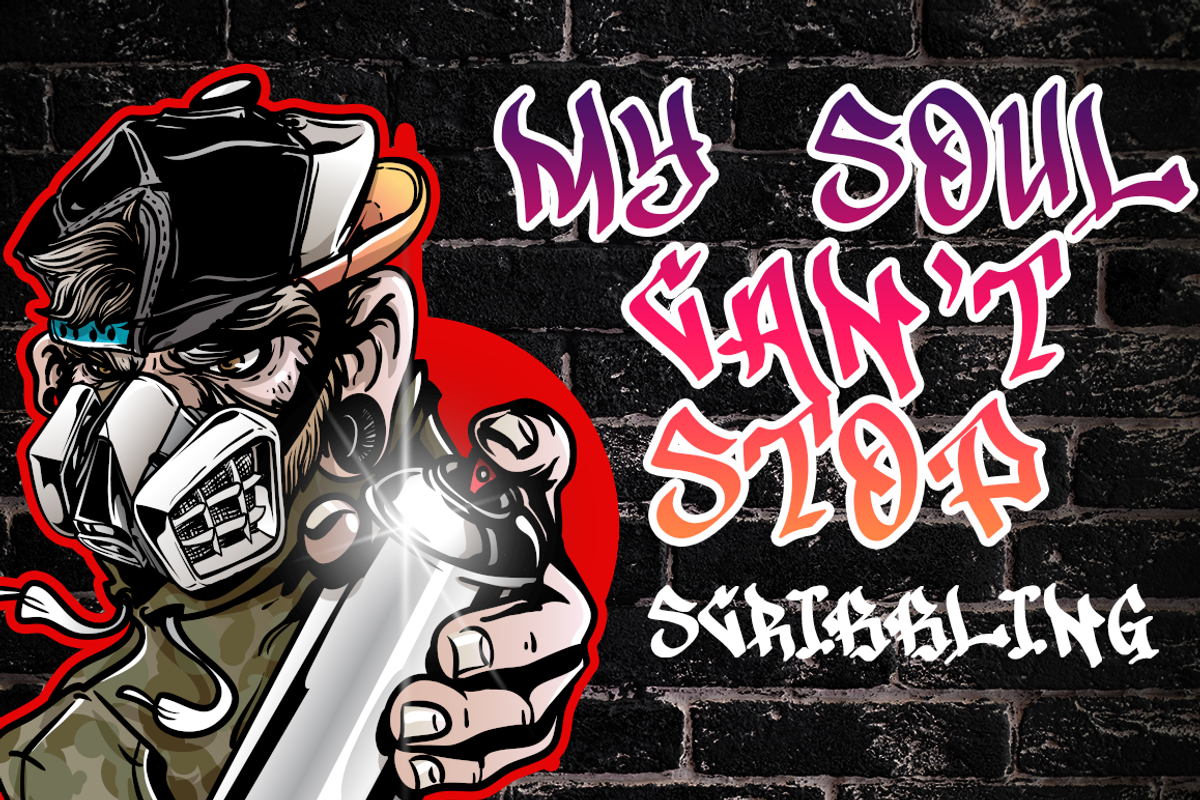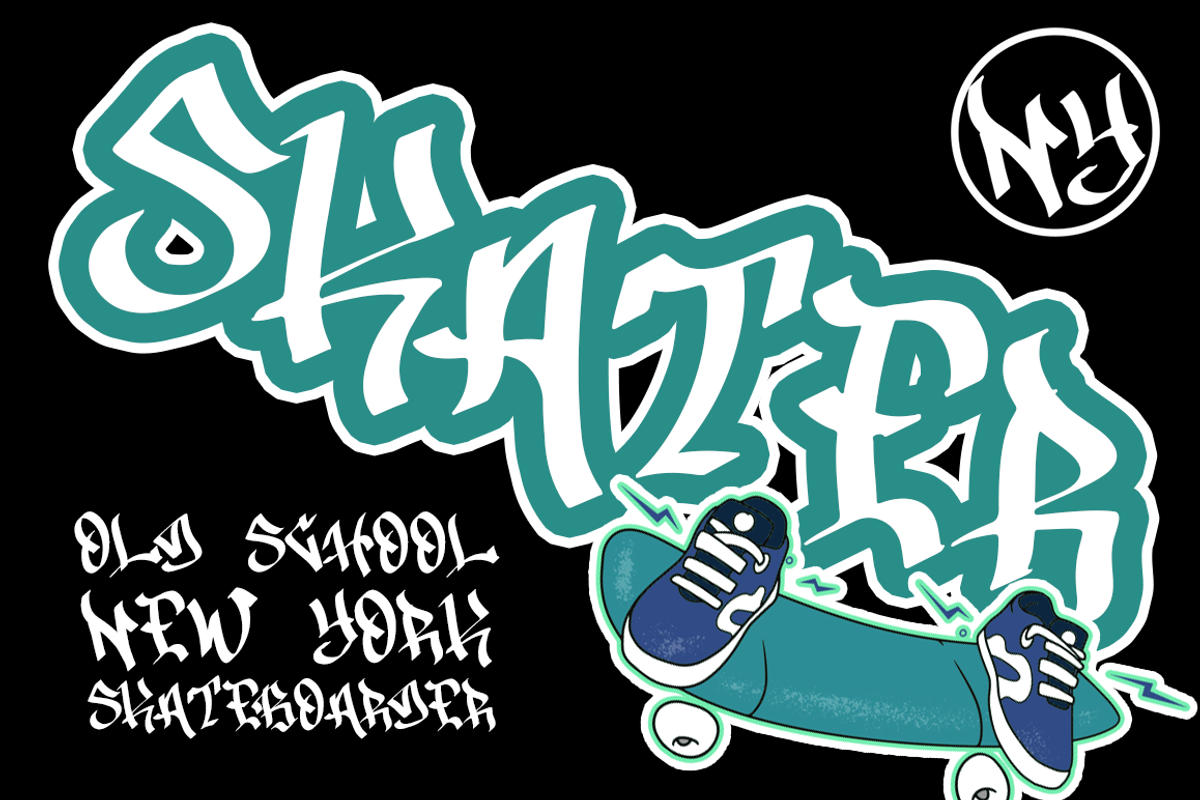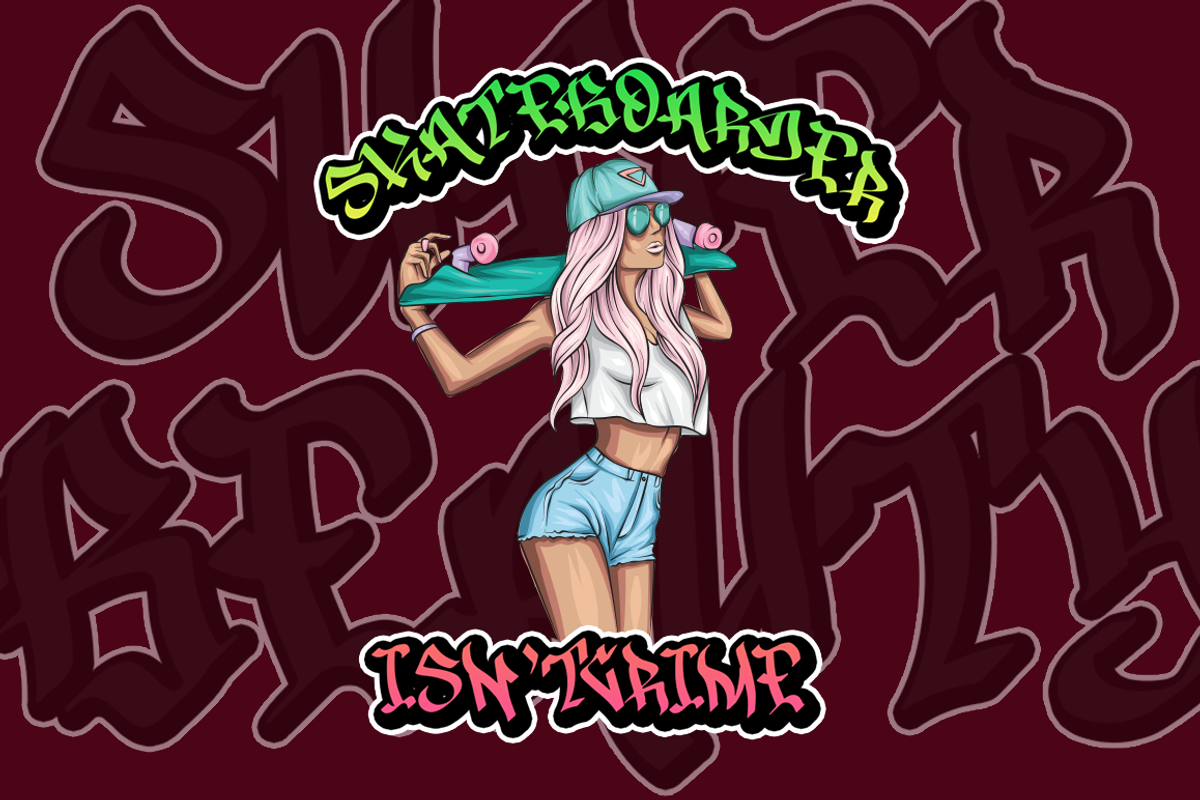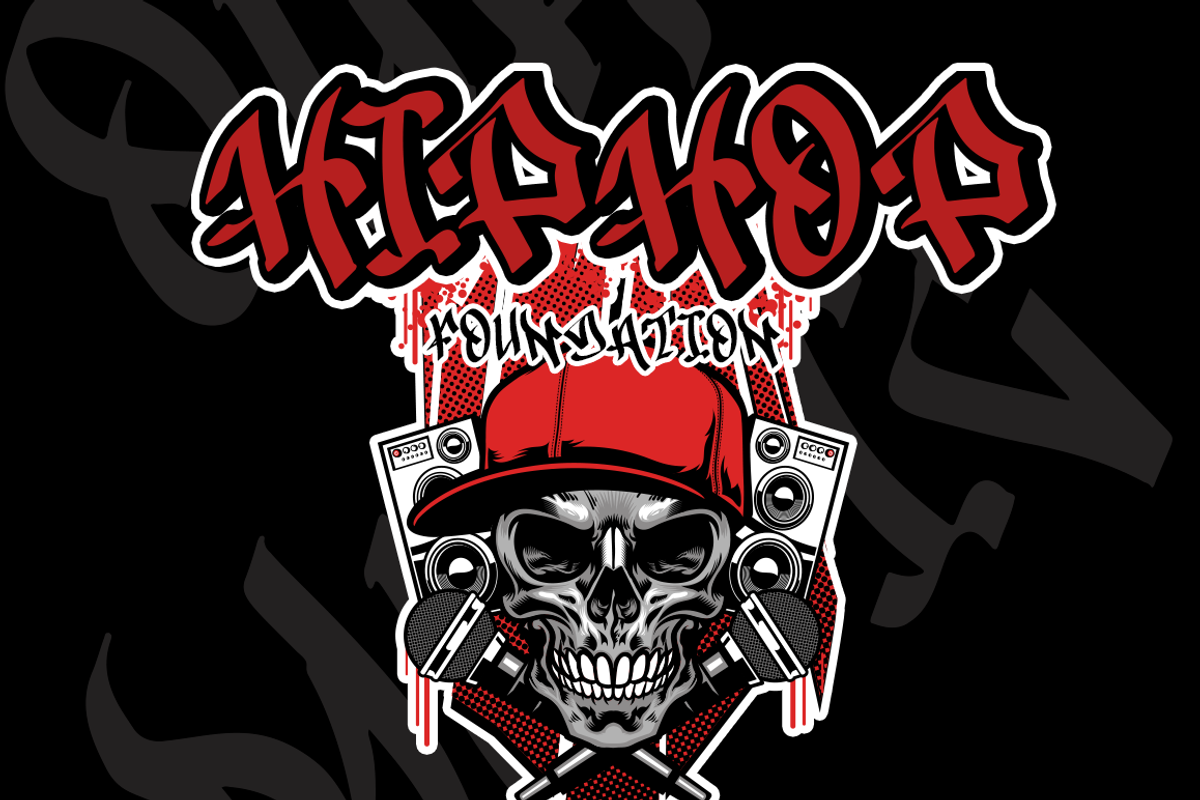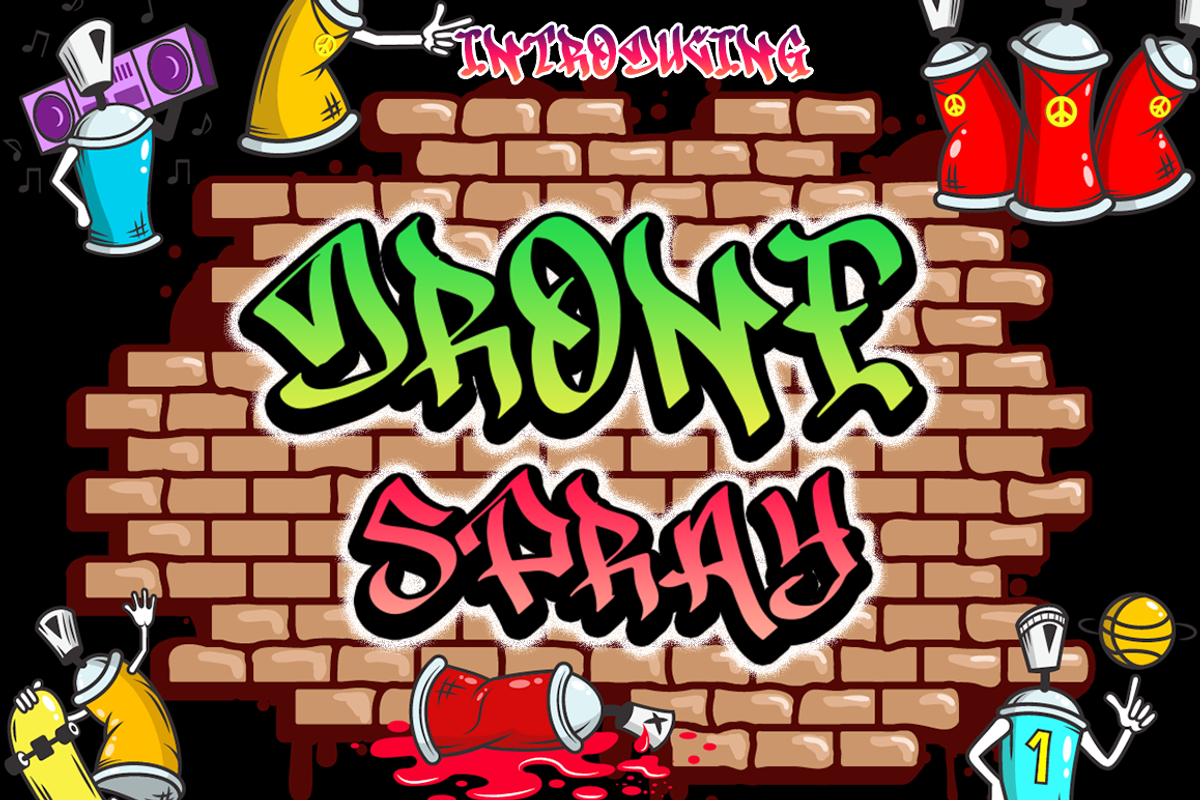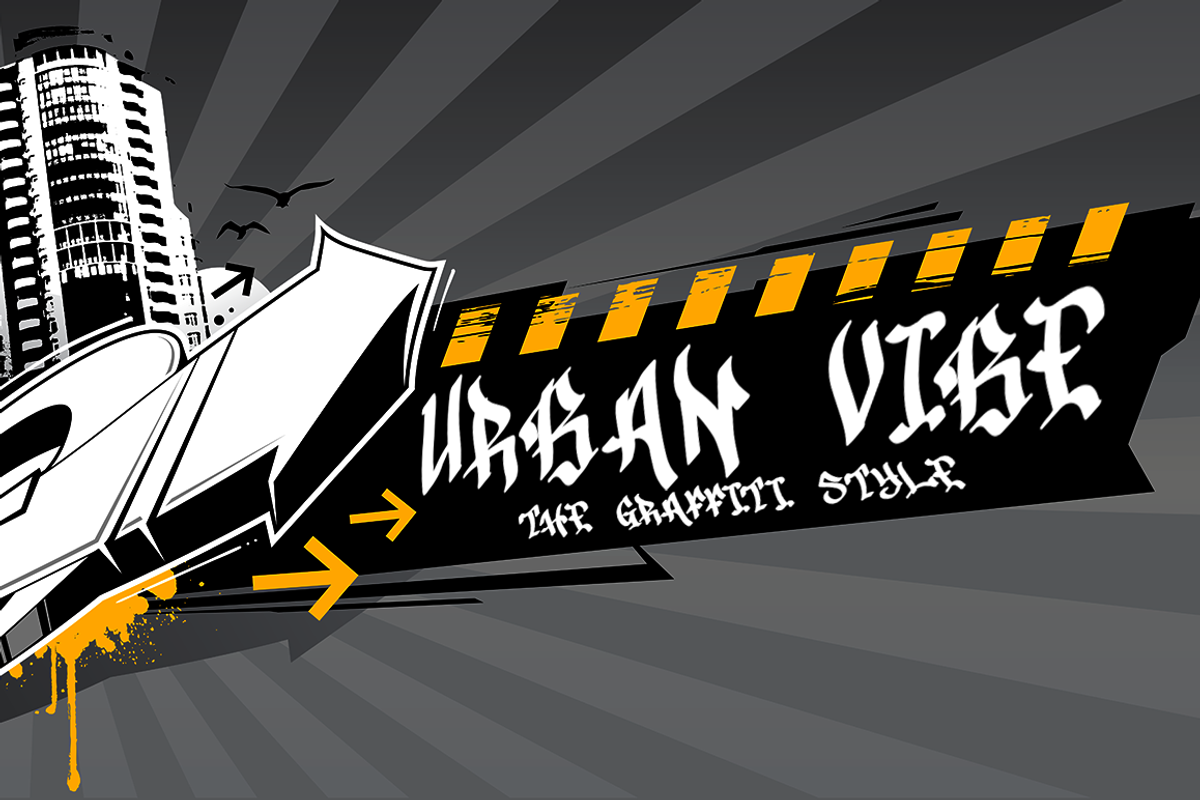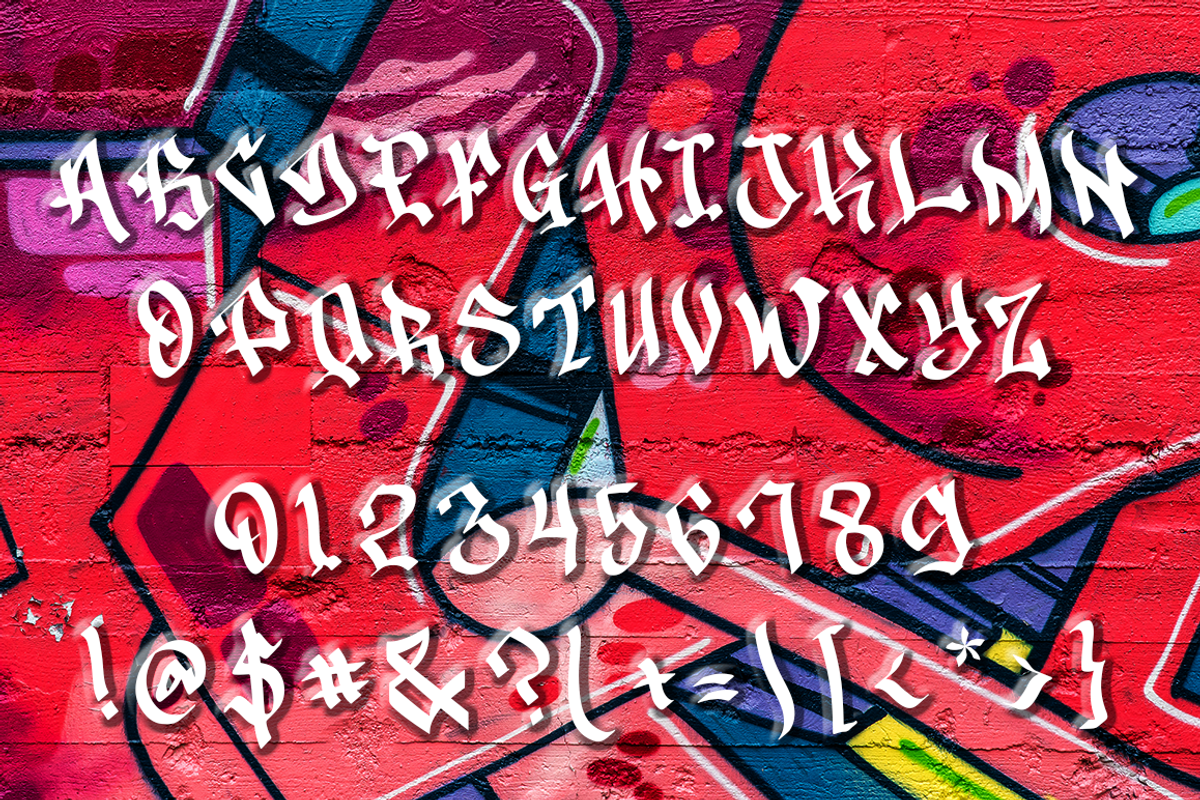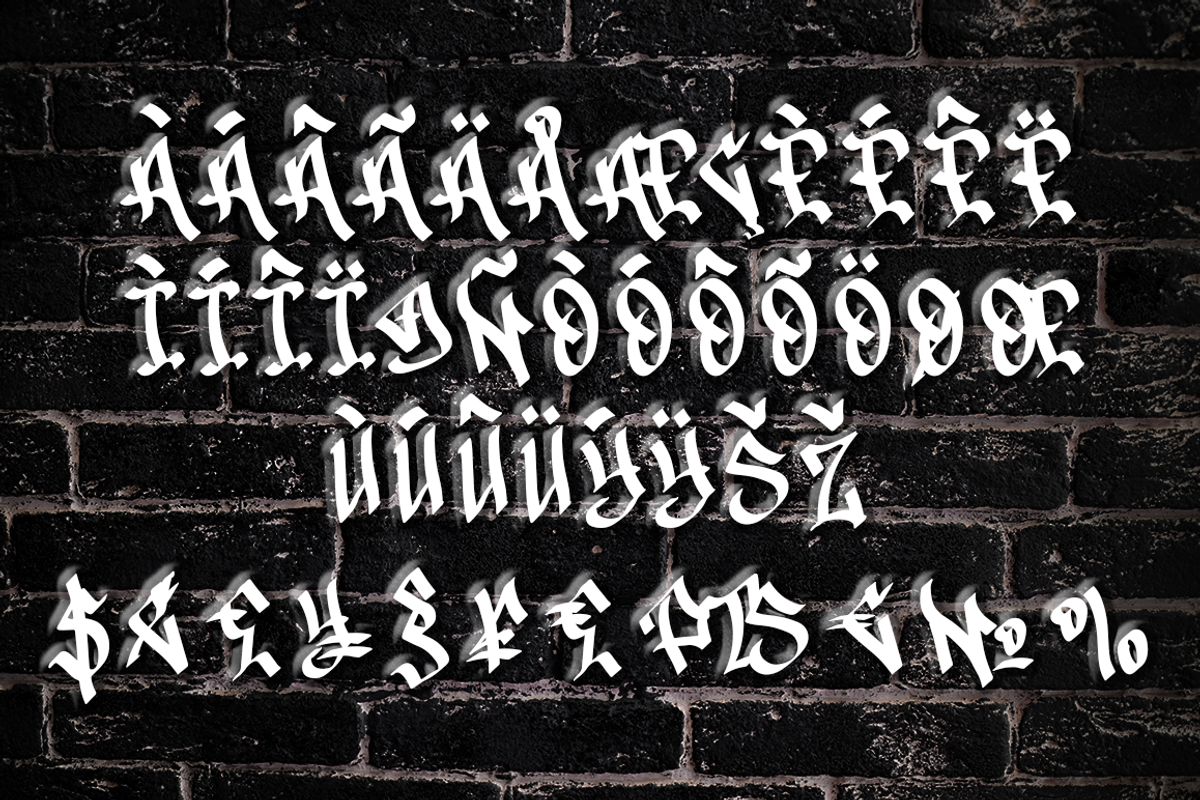
Drone Spray a Funky Graffiti Style
"Drone Spray" is a stylish modern graffiti font with casual quirky style. It is perfect for branding, promotion, product packaging, t-shirt and other needs.
You will get full set of lowercase and uppercase letters, numerals and punctuation, multilingual symbols, ligatures and extra swashes that giving realistic graffiti style.